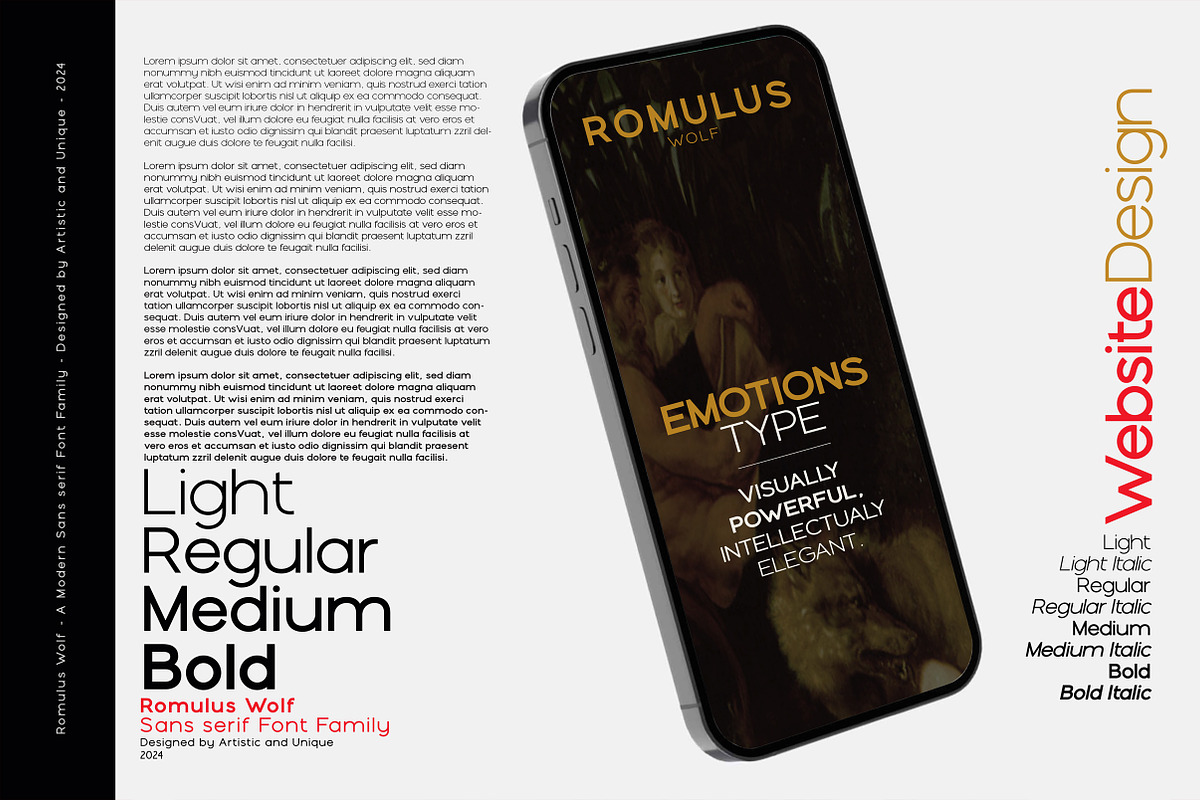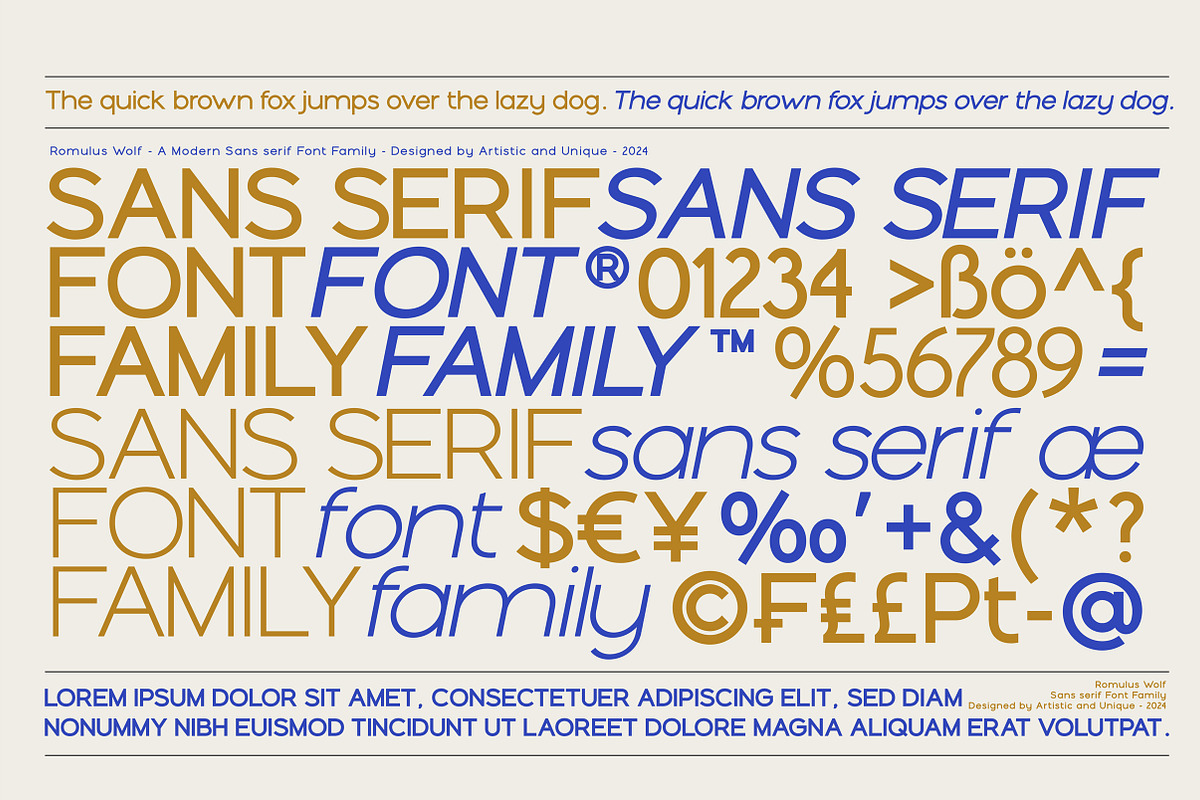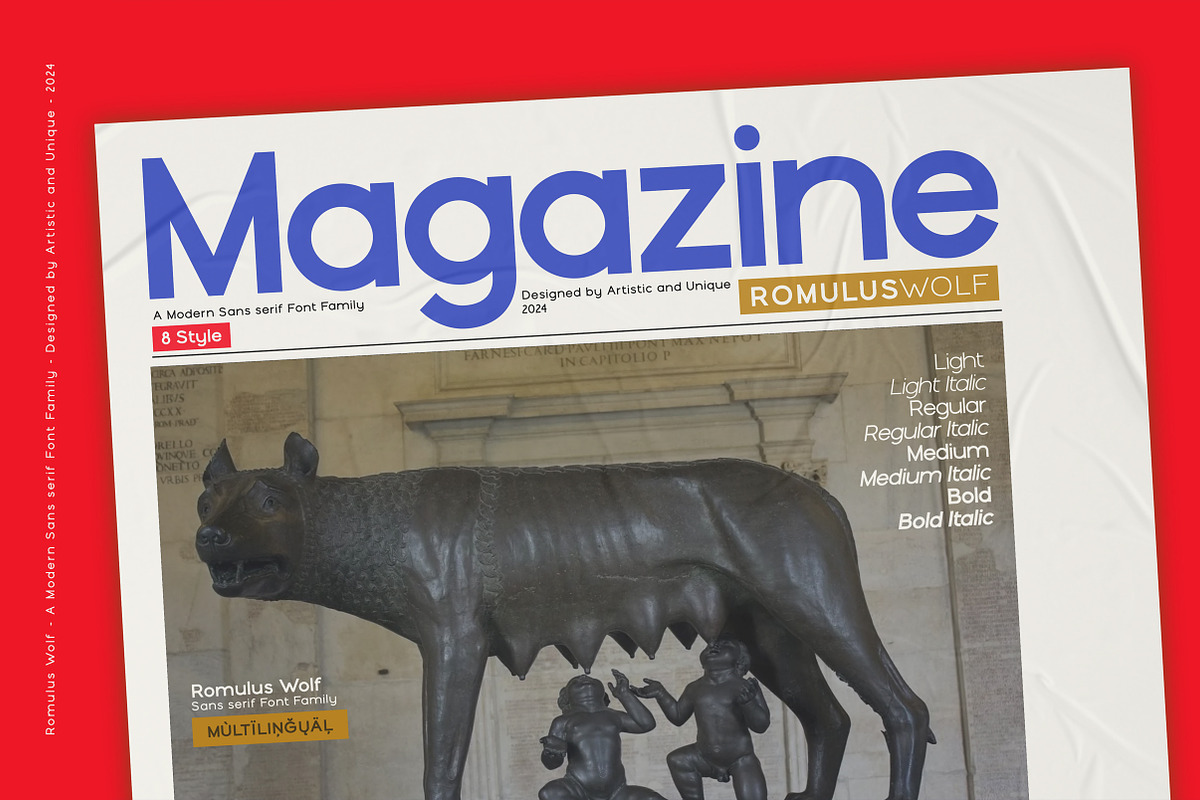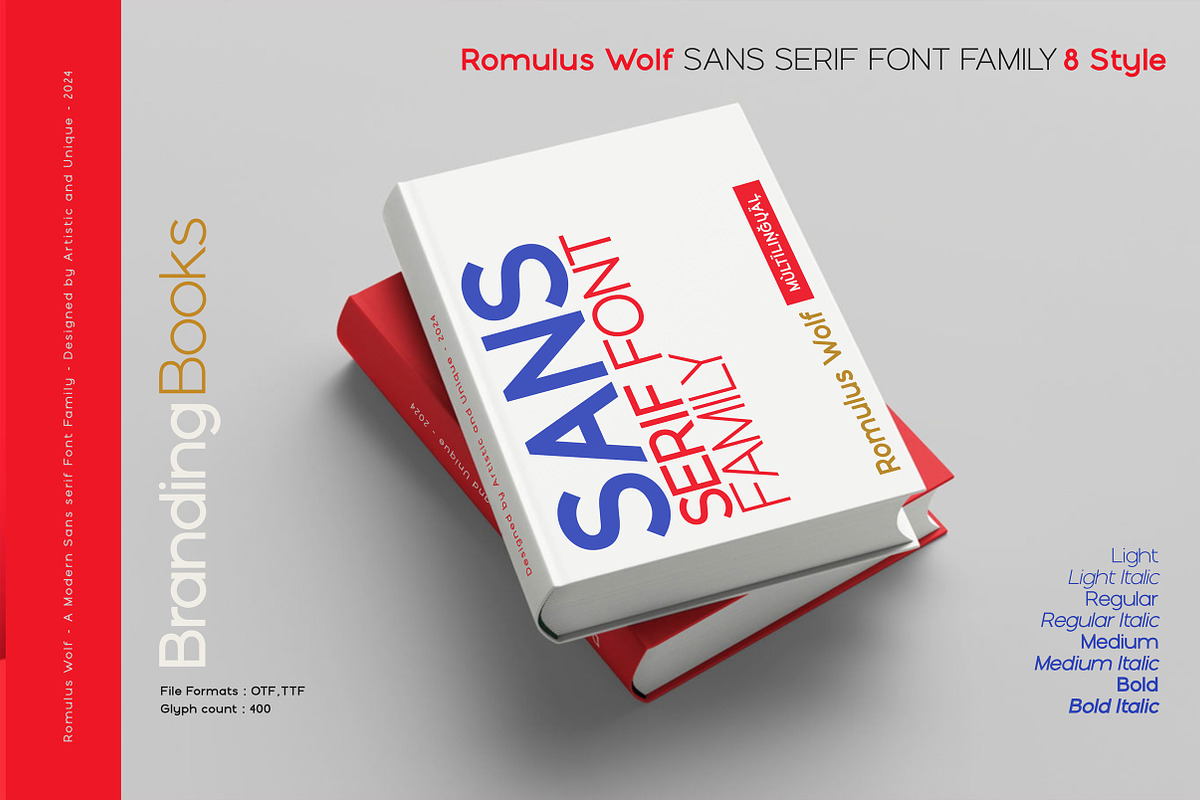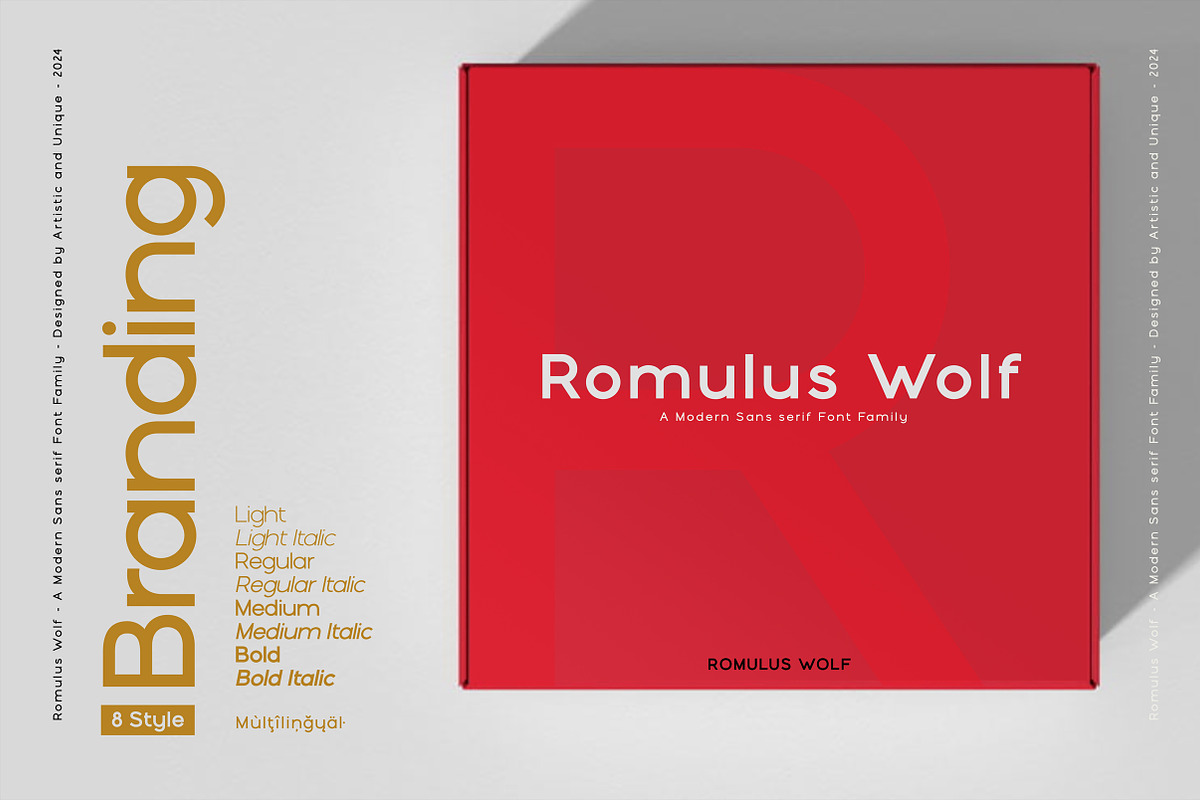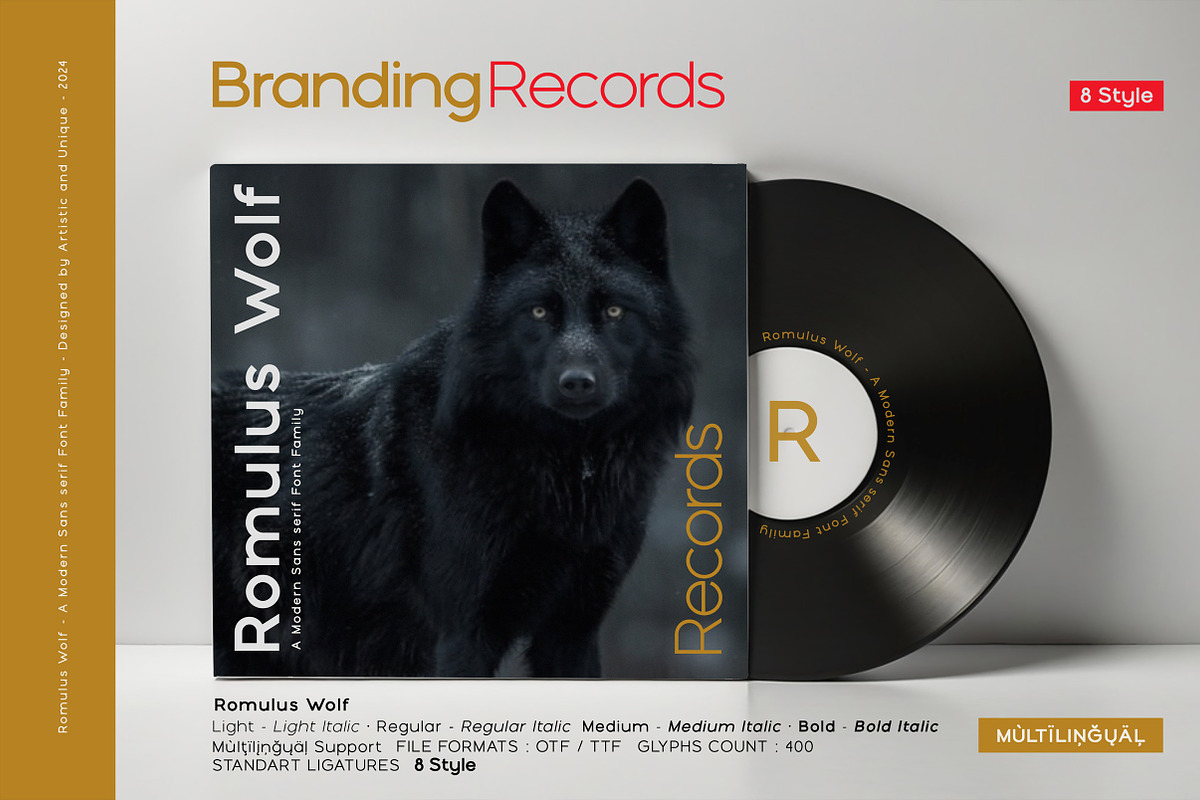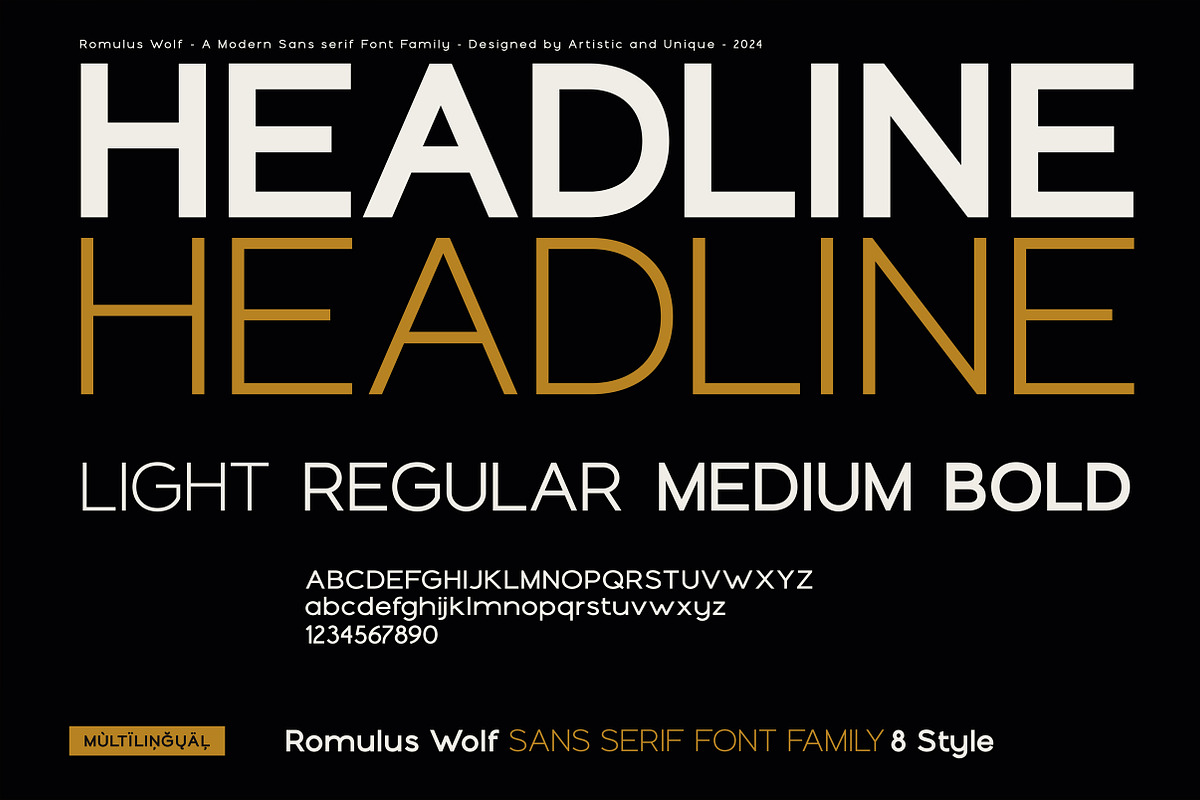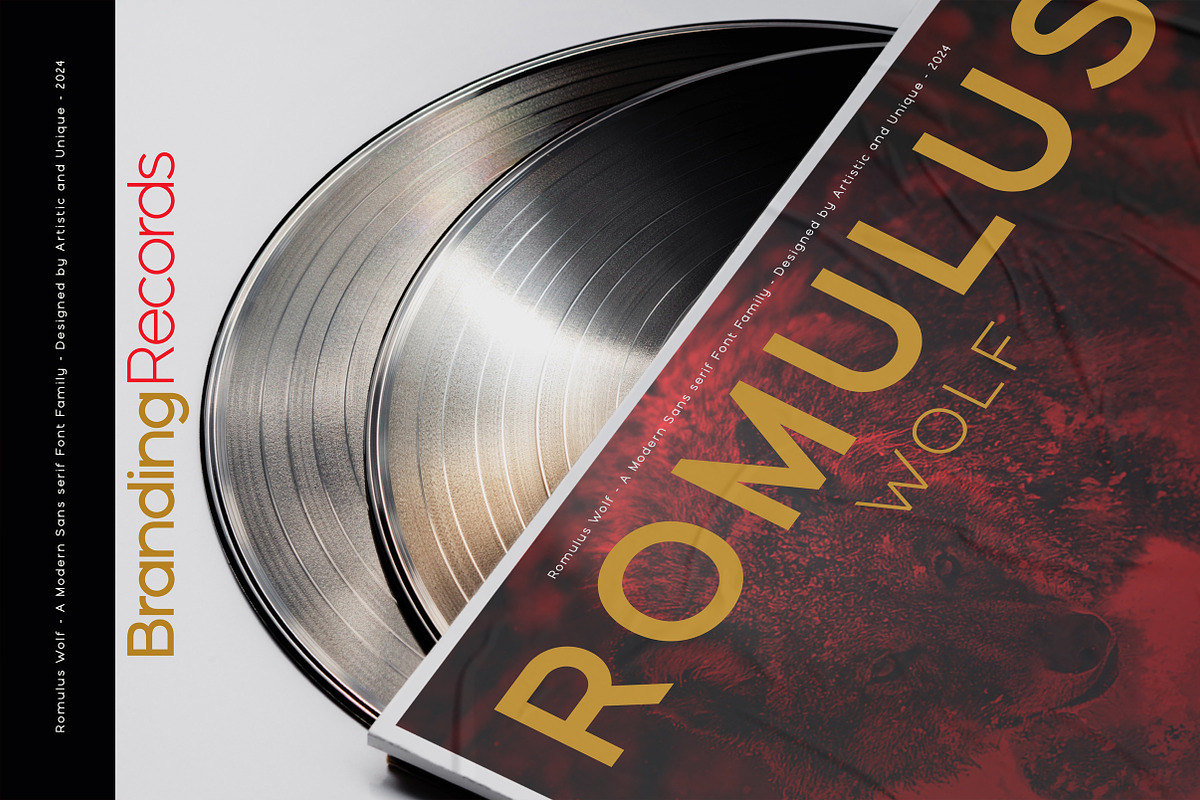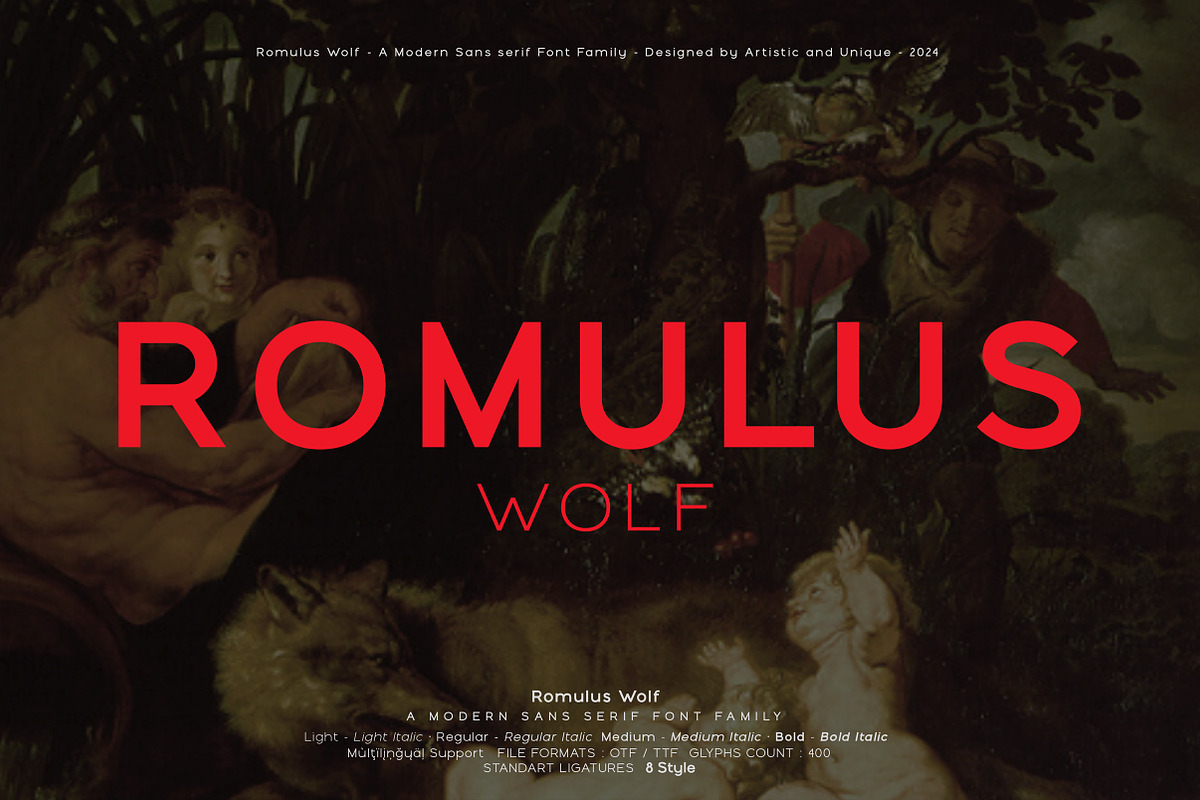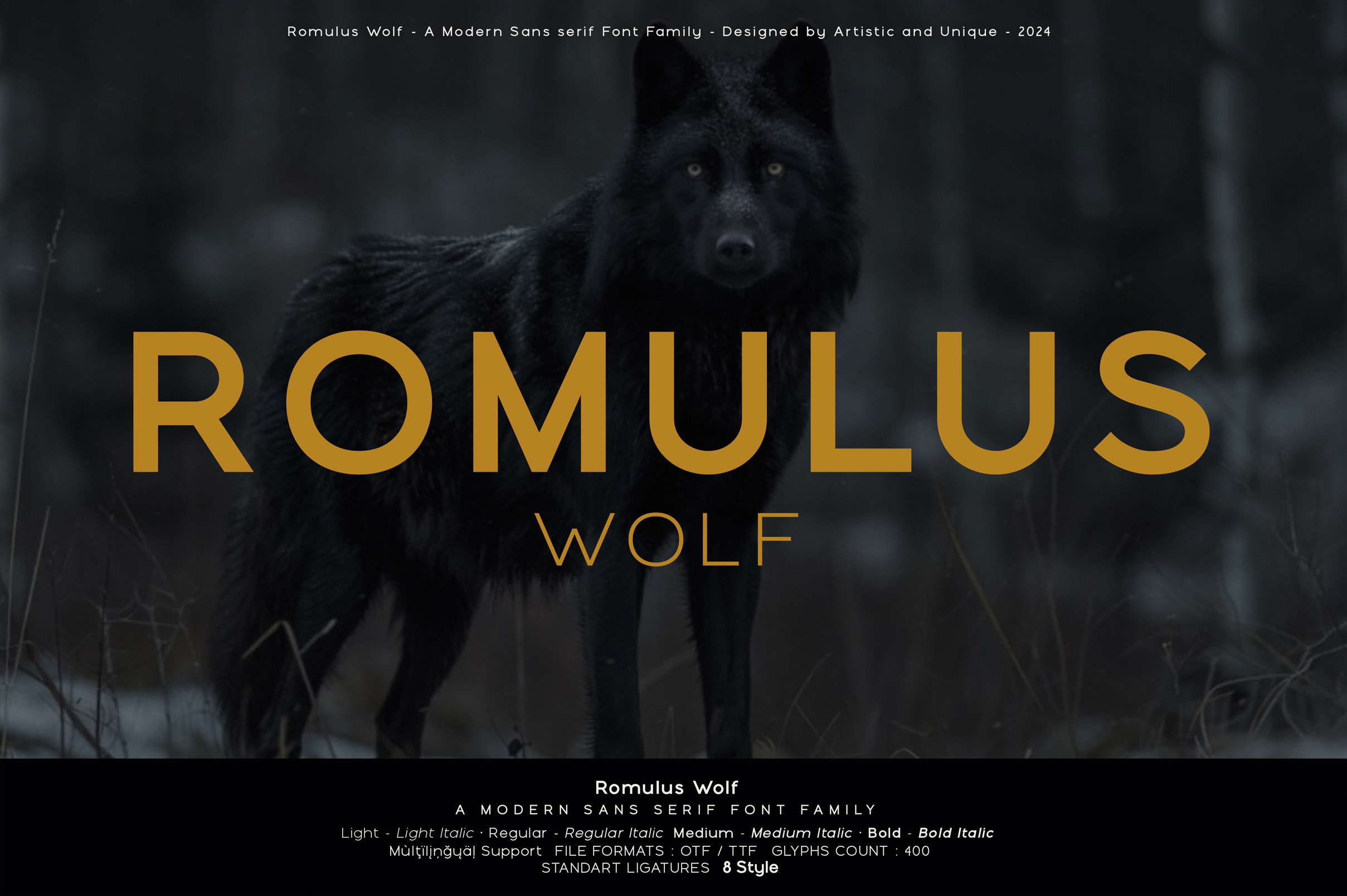
Romulus Wolf-Sans serif font family
Romulus Wolf - Sans serif font family - Multilingual supports - 8 Styles
Romulus Wolf sans serif font family is a modern geometric font family. It help you develop your creative projects with 8 styles and multilingual supports.
*According to the legend in Roman mythology, Romulus is the founder of the city Rome. The name of this font is inspired by the legend of Romulus and Remus.
Romulus and Remus, legendary twin brothers believed to be the sons of the war god Mars, are credited with founding the mighty city of Rome.Their story, shrouded in myth and mystery, is a captivating tale of the fate, and the origins of a civilization that would dominate the ancient world.*
You can easily use the sans serif font feature in many areas.You can compose your text with normal characters and highlight heavy characters and titles. Functional in many sizes and environments that you can use as the main actor in strong headlines.
If you are looking for a modern - geometric and sans serif style that can be effective in branding, you can easily use this font. Whit these features, it will be effective in creating alternatives in your projects.It is also assertive about being a highly readable font with different weights.
Ideal for books and magazines, editorials, headlines, websites, movie titles, posters, logos, branding, advertising and more. This font family can meet your needs in all creative projects, modern and classic.
With this font you can create your unique designs.